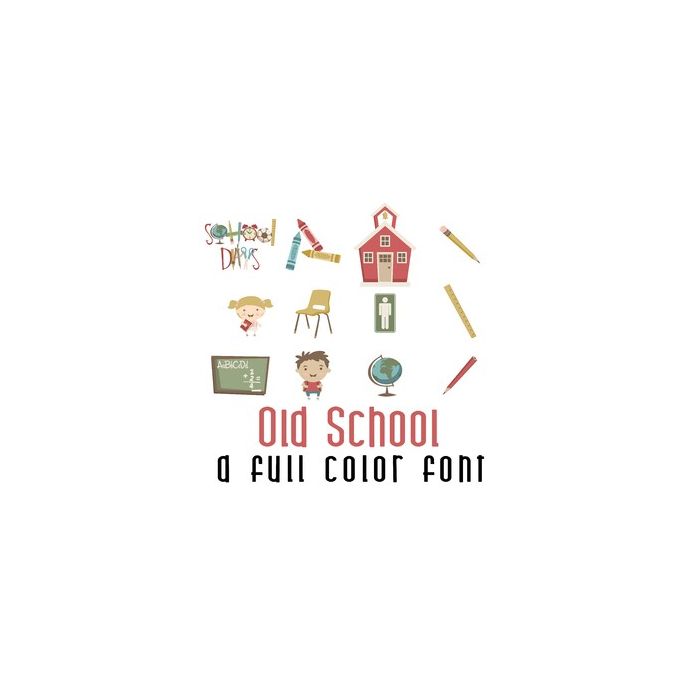
This adorable full-color doodlebat font features 32 old school style school images. Perfect for cards, crafts, gifts, decor, scrapbook pages, planner stickers, and more! Glyphs are A-Z and 0-5